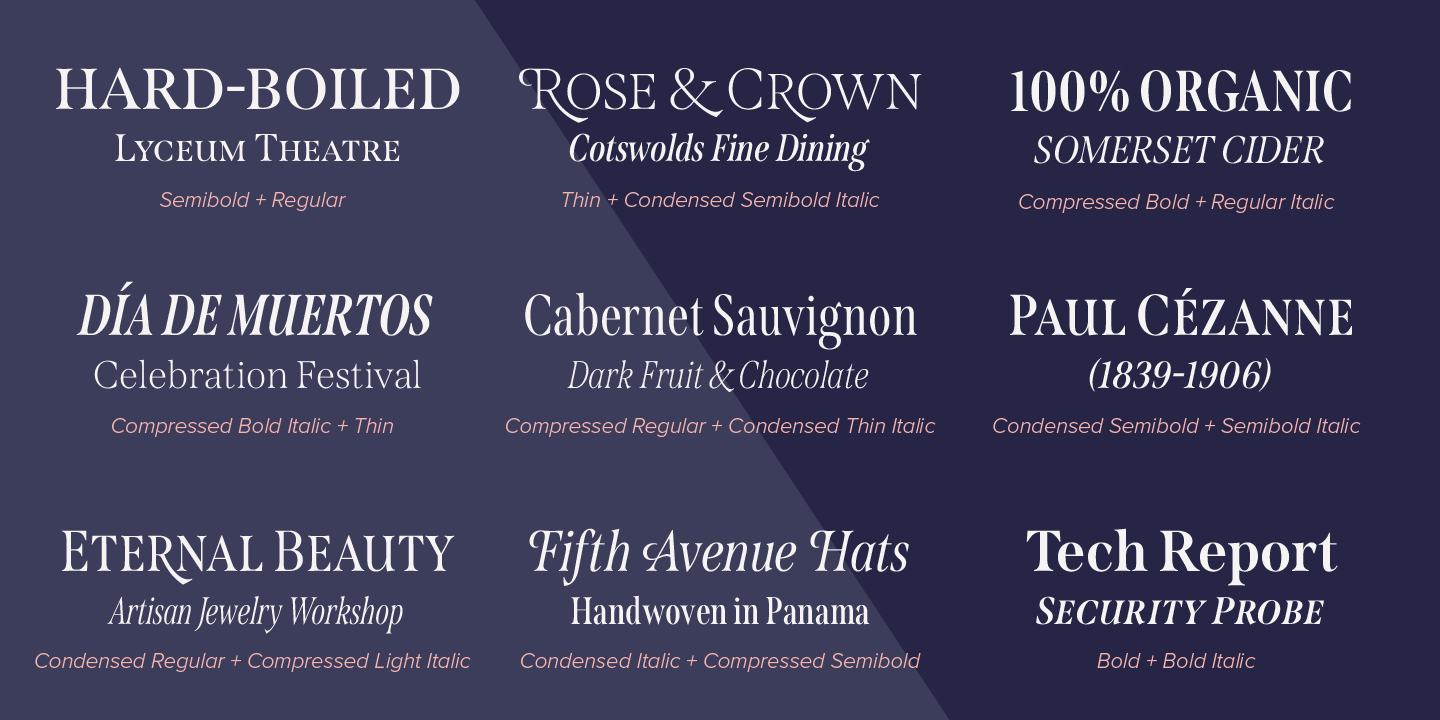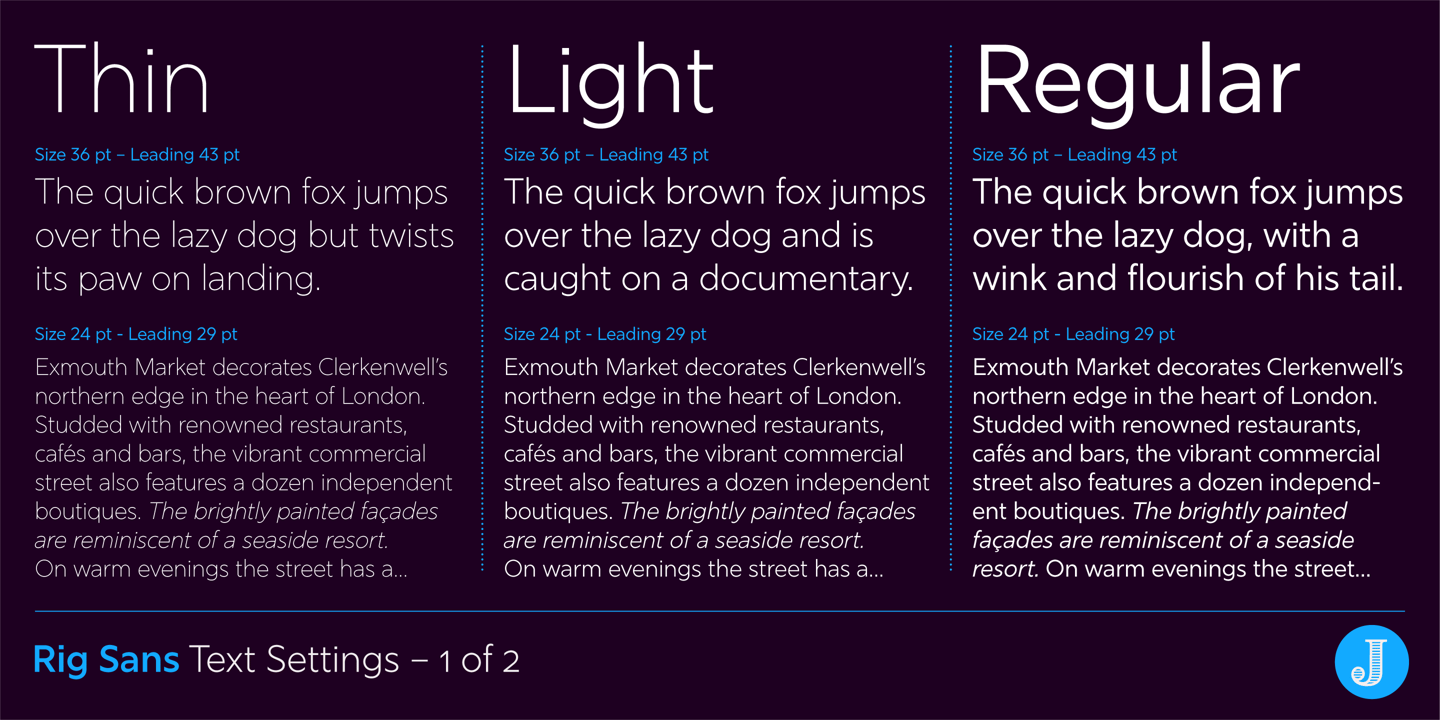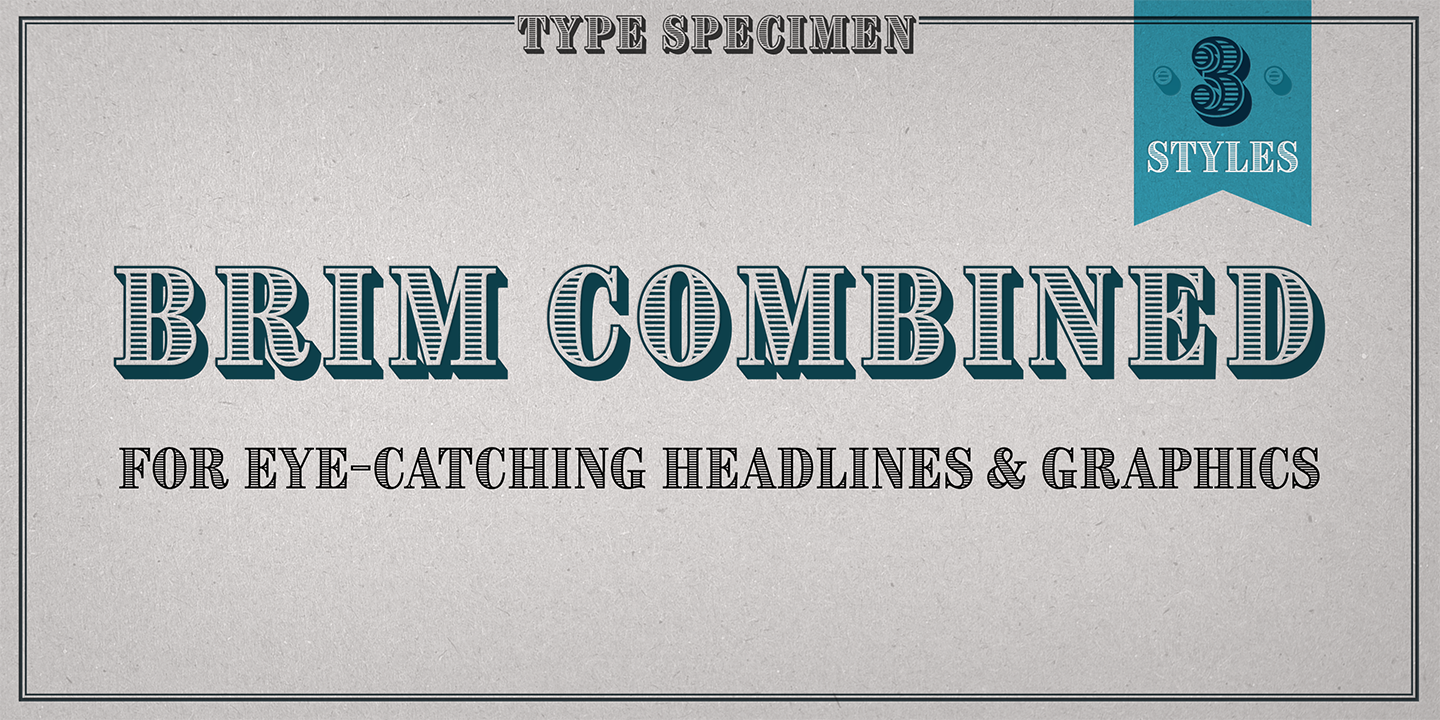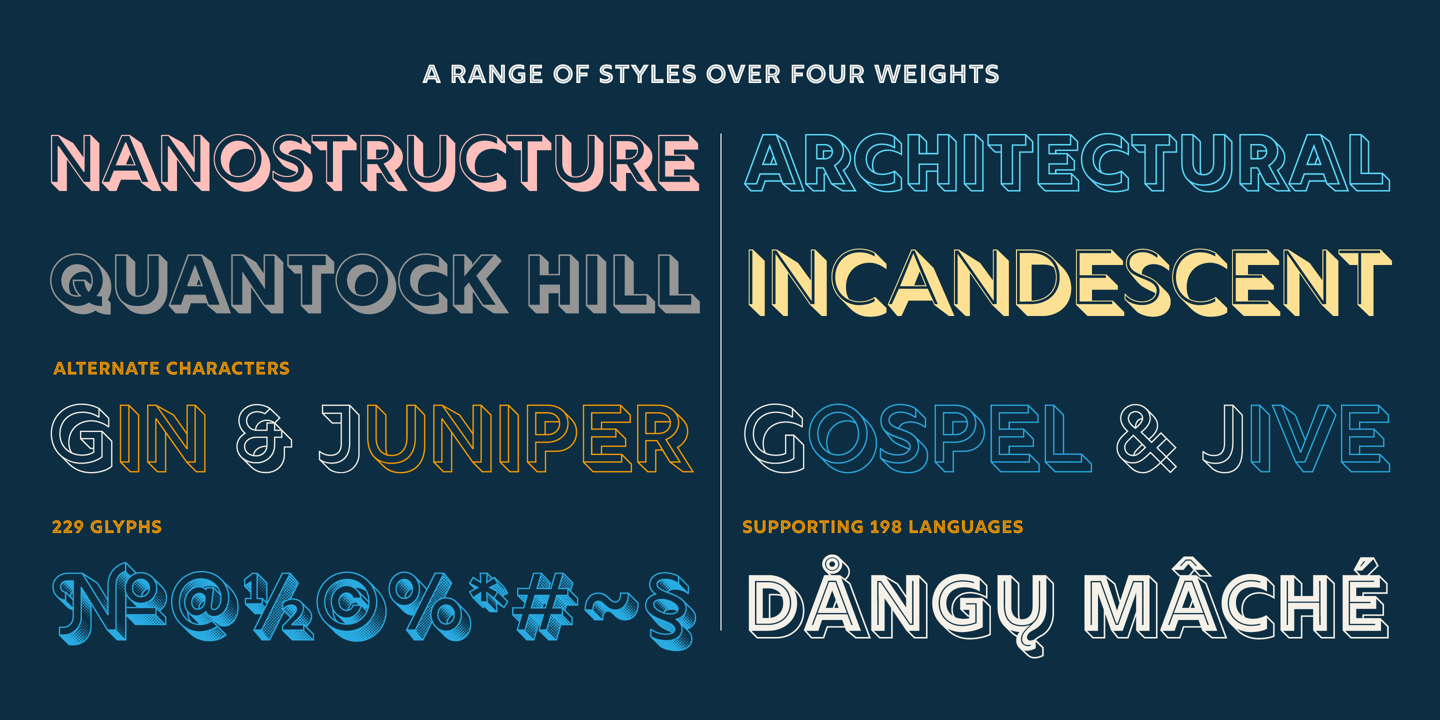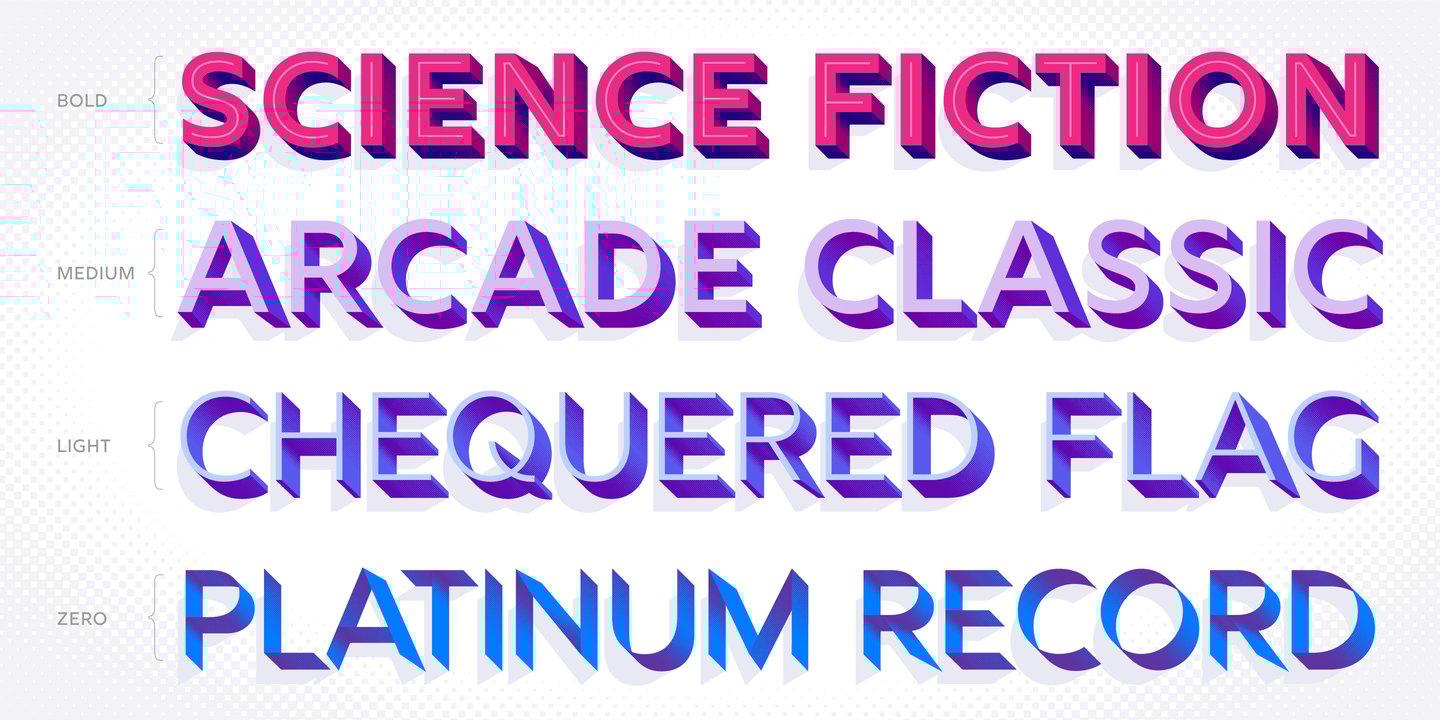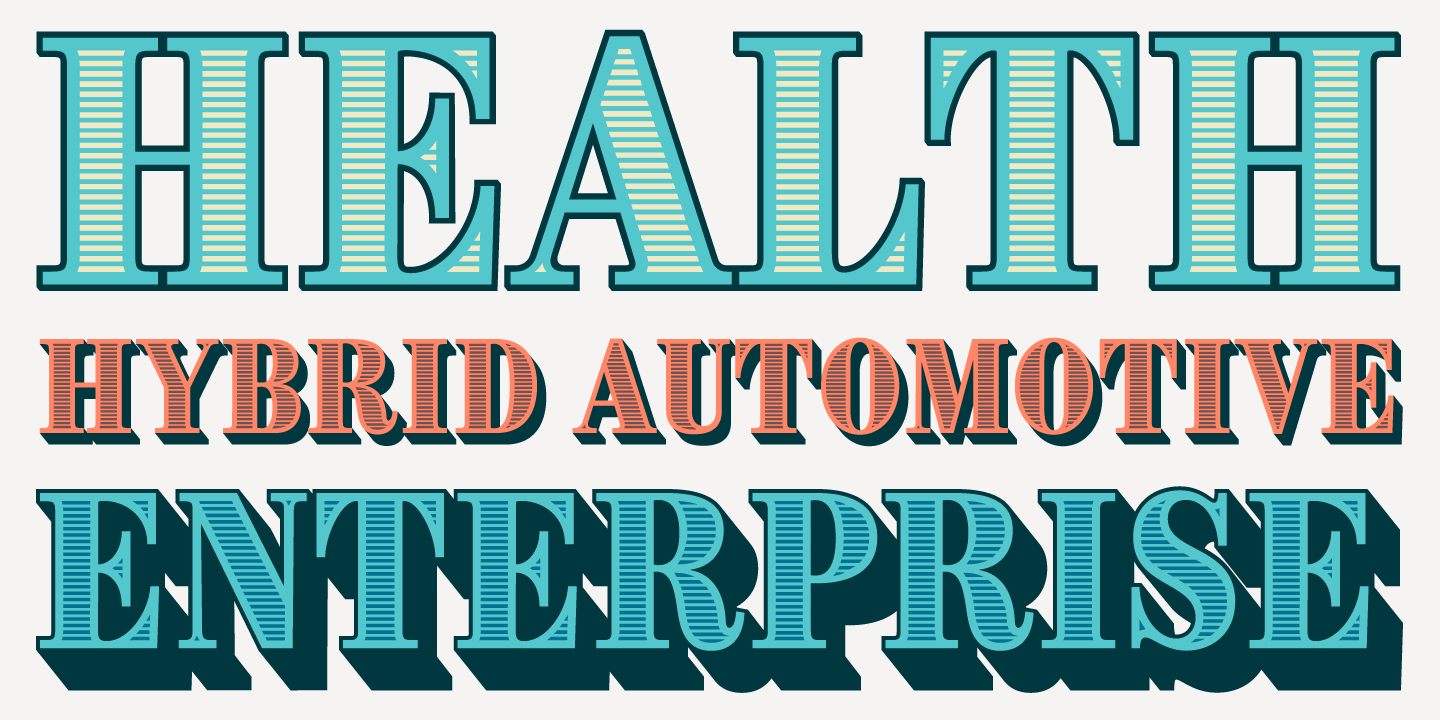
Originally based in London, Jamie Clarke’s specializes in illustrative type and lettering. “My aim is to bring words to life and make them more vivid with decoration and imagery. They can be fun or serious, as long as they enhance the message.” This goal eventually gave rise to his eye-catching debut font, Brim Narrow.
With a background in web design, Jamie was previously Head of Design for Europe at Microsoft. He went on to form one of the UK’s top digital agencies, where he worked with a range of well-known media and technology clients.
After ten years at the agency, Jamie decided to retrain. He studied Type Design at Reading University, and Letterpress at the St. Bride Foundation in London.
He also runs the popular blog, Type Worship and is part of the team behind the typography magazine, 8 Faces.
Jamie is currently living in Sydney, where he is expanding his collection of lettering projects and typefaces.